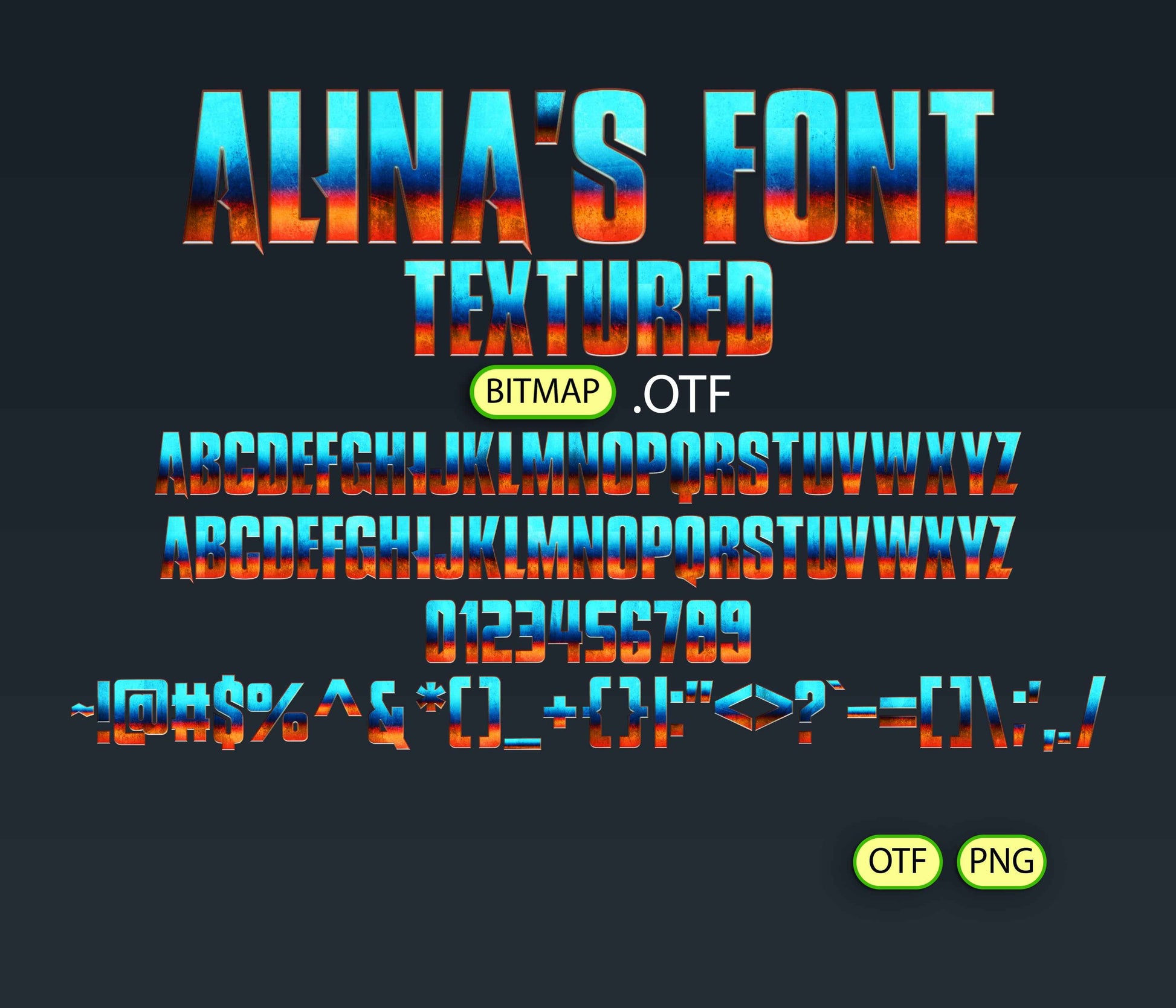
Titan Beast Font Textured
Titan Beast Movie 2024 Textured Font
Immerse yourself in the awe-inspiring world of a colossal monster with our Titan Beast font, a towering creation that embodies the sheer power and indomitable spirit of a legendary creature. This font pays homage to the iconic kaiju's legacy, spanning decades of cinematic history, where it has stood as a symbol of nature's wrath and mankind's resilience. Capturing the essence of a titanic presence and the cataclysmic energy of its roar, our font invites you to channel the might of this legendary creature into your creative endeavors.
What font is the Titan Beast font?
Envision a typeface that mirrors the colossal and fearsome nature of a giant monster. This font is crafted to reflect the destructive beauty and unstoppable force of the creature, with bold, imposing letters that seem to crackle with primal energy. Its design draws inspiration from the jagged silhouettes of cityscapes against the backdrop of monstrous rampages, as well as the creature's textured scales. The extensive character set ensures versatility, allowing for the creation of impactful messages that resonate with the themes of power, survival, and awe-inspiring majesty.
The Titan Beast font's versatility makes it ideal for a wide array of projects, enabling fans and creators to infuse their work with the essence of a legendary monster. Its customization potential opens up numerous possibilities:
1. Movie Posters and Fan Art: Design compelling visuals that capture the epic scale of monster battles.
2. Merchandise Design: Create T-shirts, posters, and collectibles that kaiju fans will treasure.
3. Event Invitations: Craft unique invites for movie nights, themed parties, or fan conventions.
4. Social Media Campaigns: Produce engaging content for platforms dedicated to monster movies and kaiju lore.
5. Gaming Content: Enhance the aesthetic of video games, apps, or tabletop games inspired by giant monster universes.
6. Educational Materials: Develop intriguing presentations or materials exploring the science fiction genre, environmental themes, or film history.
7. Website Design: Build immersive fan sites or e-commerce platforms catering to monster enthusiasts.
8. Packaging Design: For special edition releases, memorabilia, or monster-themed products.
9. Book Covers: For novels, comics, or academic texts analyzing the cultural impact of giant monsters in cinema.
10. Digital Art and Illustrations: Create artwork that pays homage to the many incarnations of colossal creatures, from their origins to modern adaptations.
• Comprehensive Character Set: Equipped with an extensive selection of characters to support a wide range of creative projects, from simple designs to complex compositions requiring special symbols.
• User-Friendly Design: Intuitive and accessible, this font enables both amateur and professional designers to bring their monster-inspired visions to life with ease.
The Titan Beast font is more than a collection of characters; it's a tribute to the enduring legacy of one of cinema's most iconic monsters. Whether for personal use, fan projects, or commercial ventures, this font adds a layer of epic intensity, allowing every creation to resonate with the power and majesty of a legendary creature. Embrace the spirit of the King of Monsters, and let your designs roar with the force of its legendary presence.